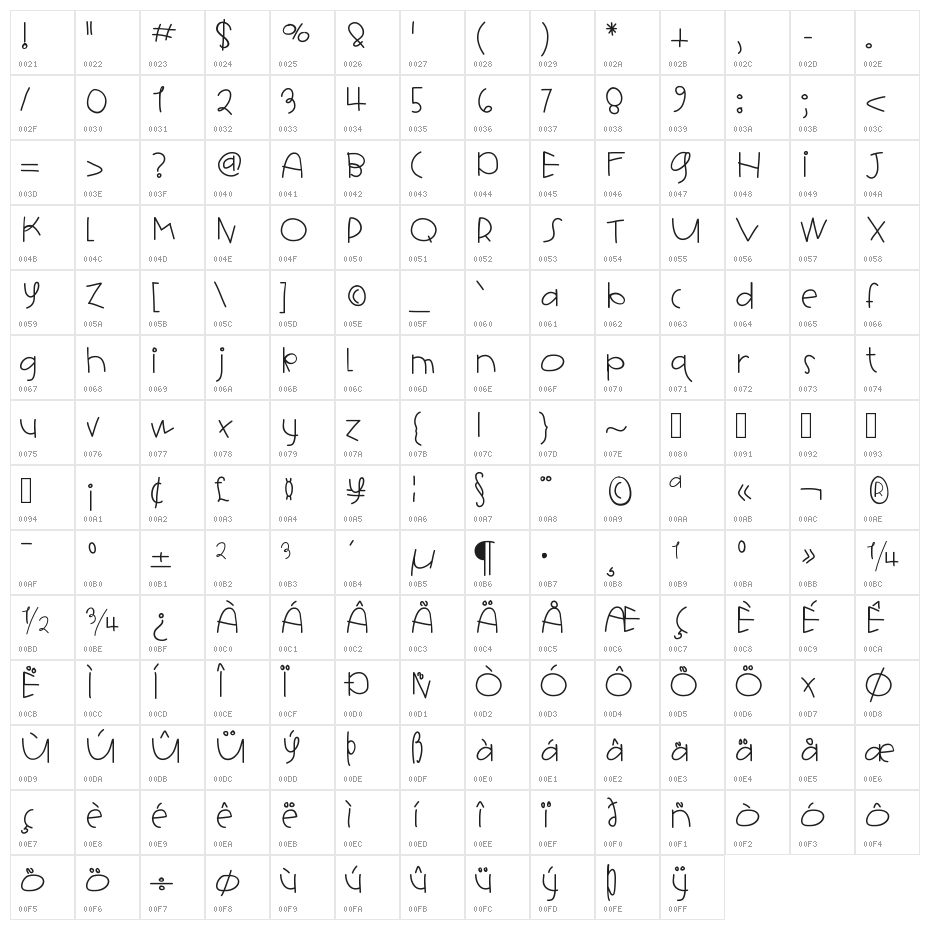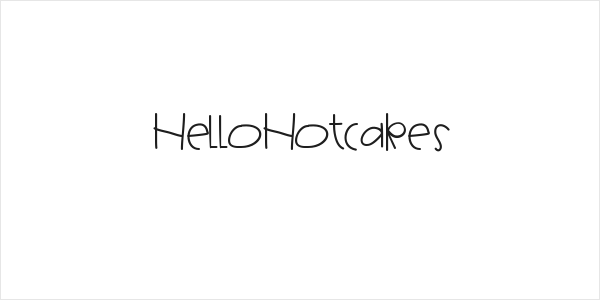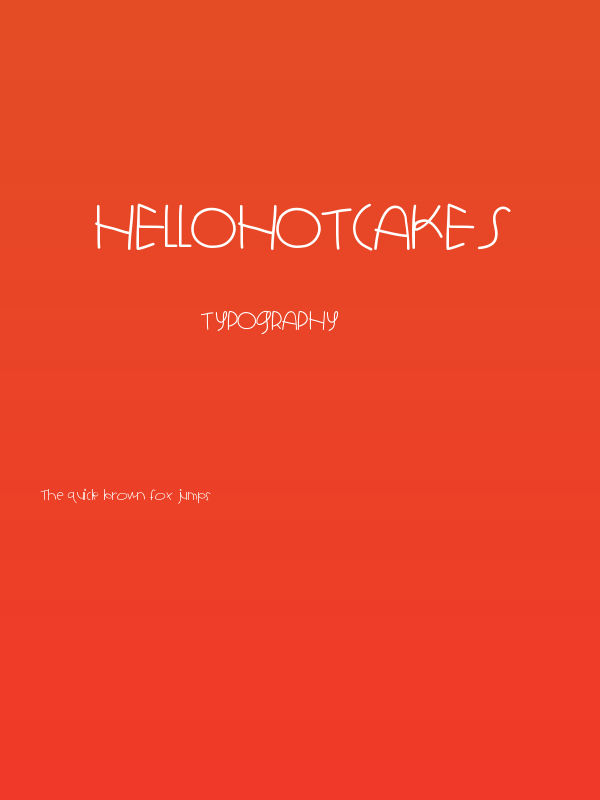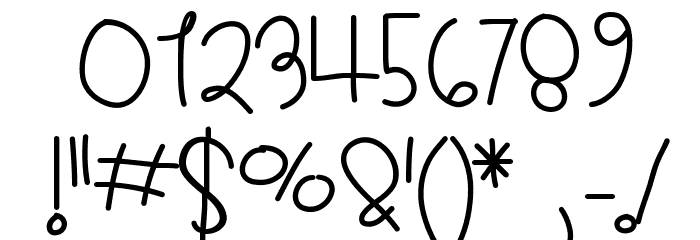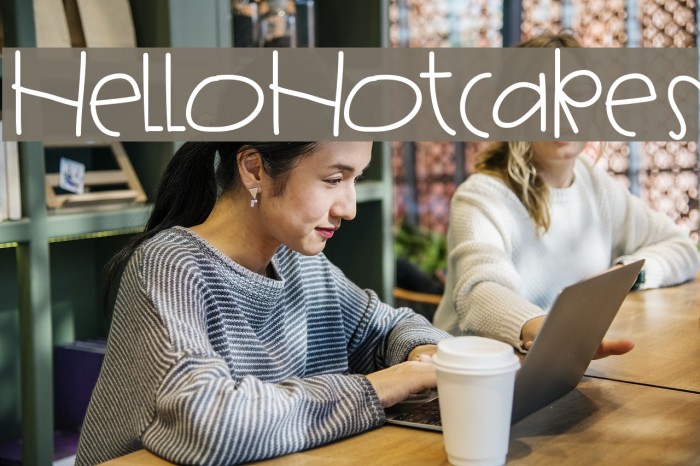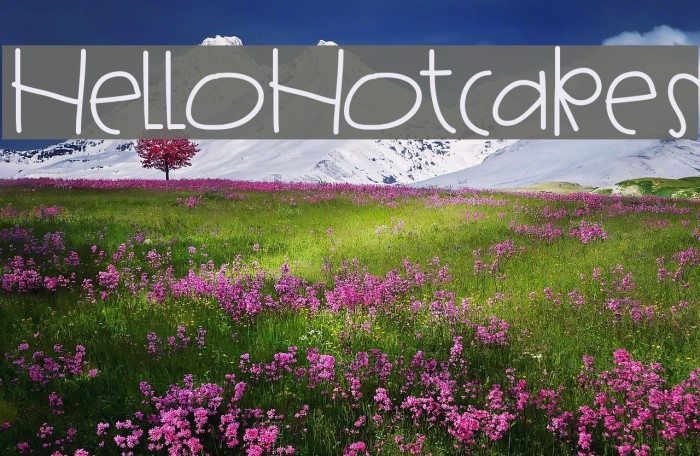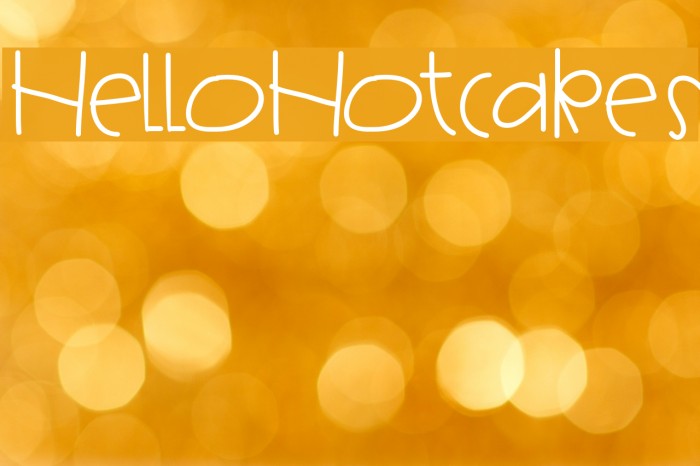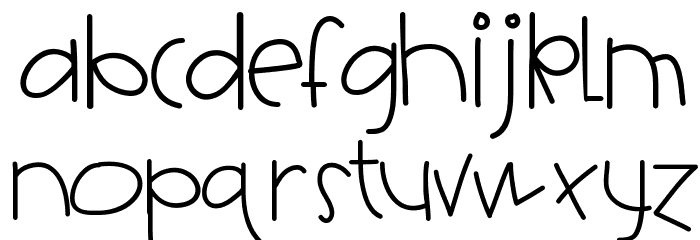
HelloHotcakes Font
HelloHotcakes Description
This playful and whimsical font features a hand-drawn style with a casual and friendly appearance. The characters are slightly irregular, adding a sense of charm and personality. The strokes are consistent in thickness, providing a uniform look across all letters. The uppercase and lowercase letters maintain a cohesive style, while the numbers and special characters complement the overall design. This font is ideal for projects that require a fun and approachable aesthetic, such as children's books, greeting cards, or playful branding.
| Use Case | Headlines, Logos, Casual text |
| Proposed Projects | Children's books, greeting cards, playful branding, casual invitations. |